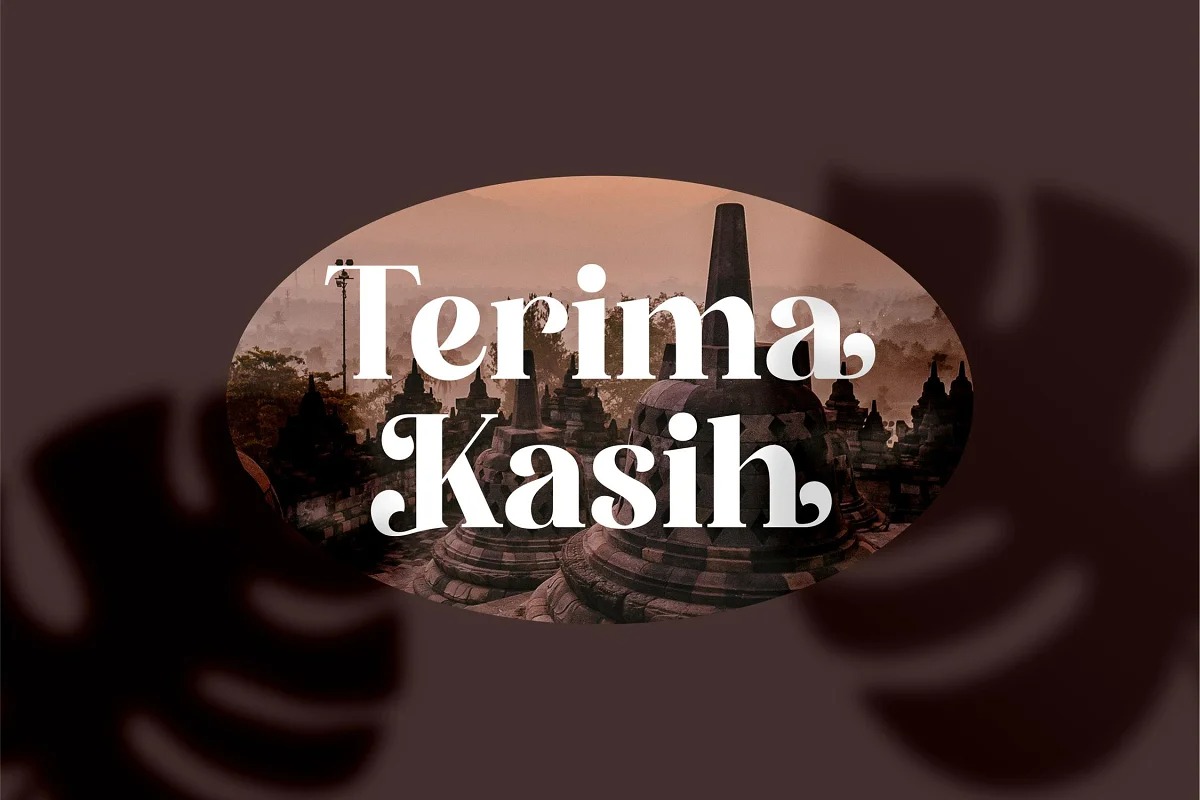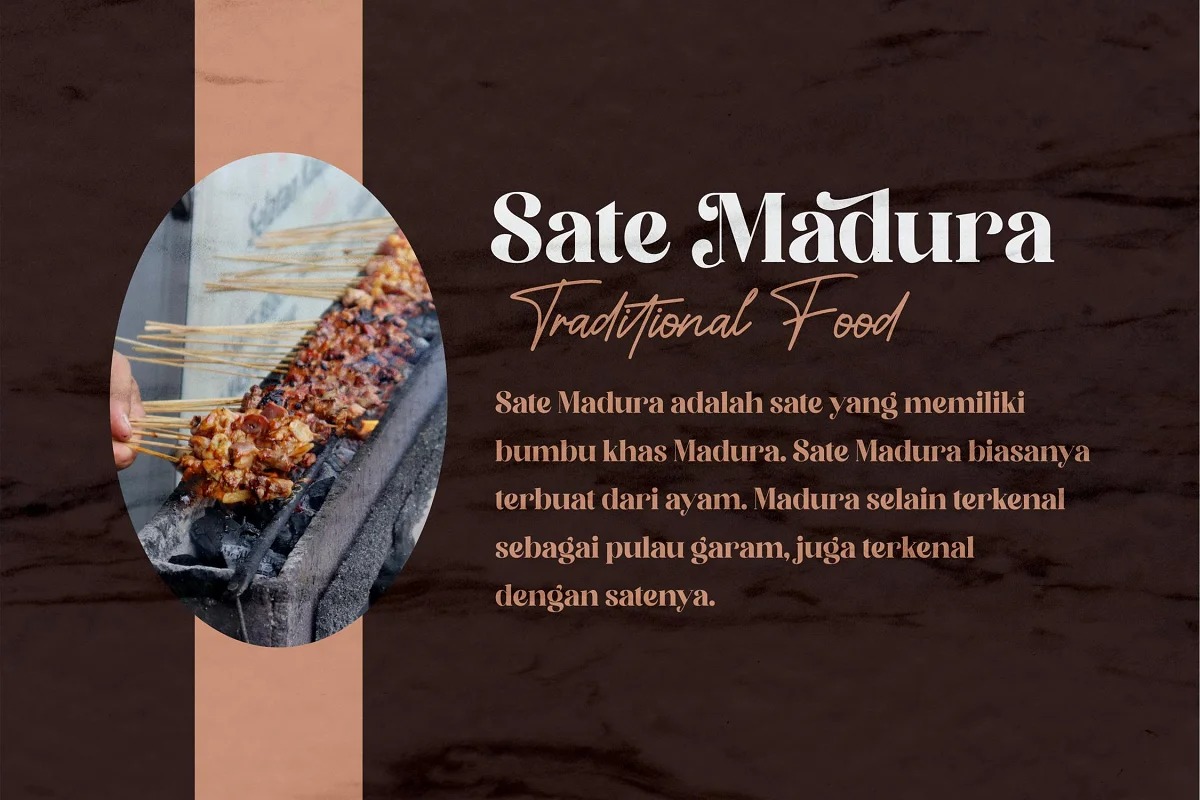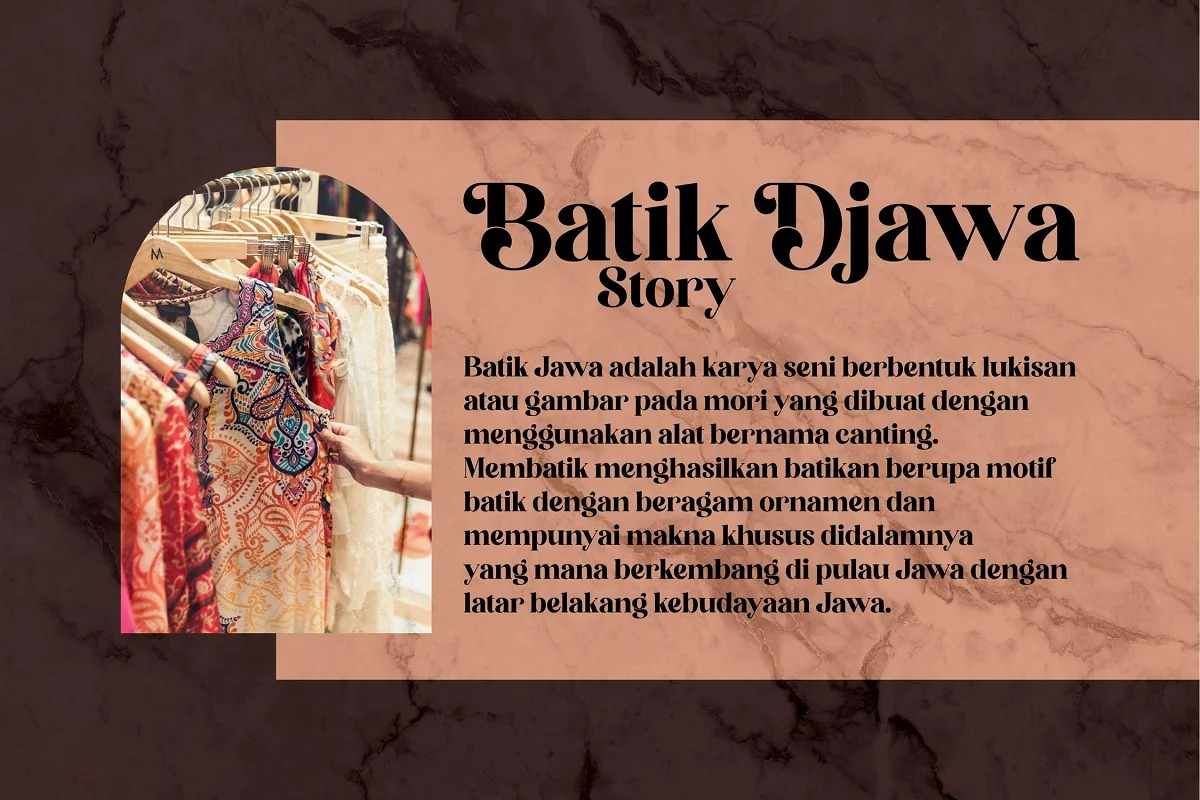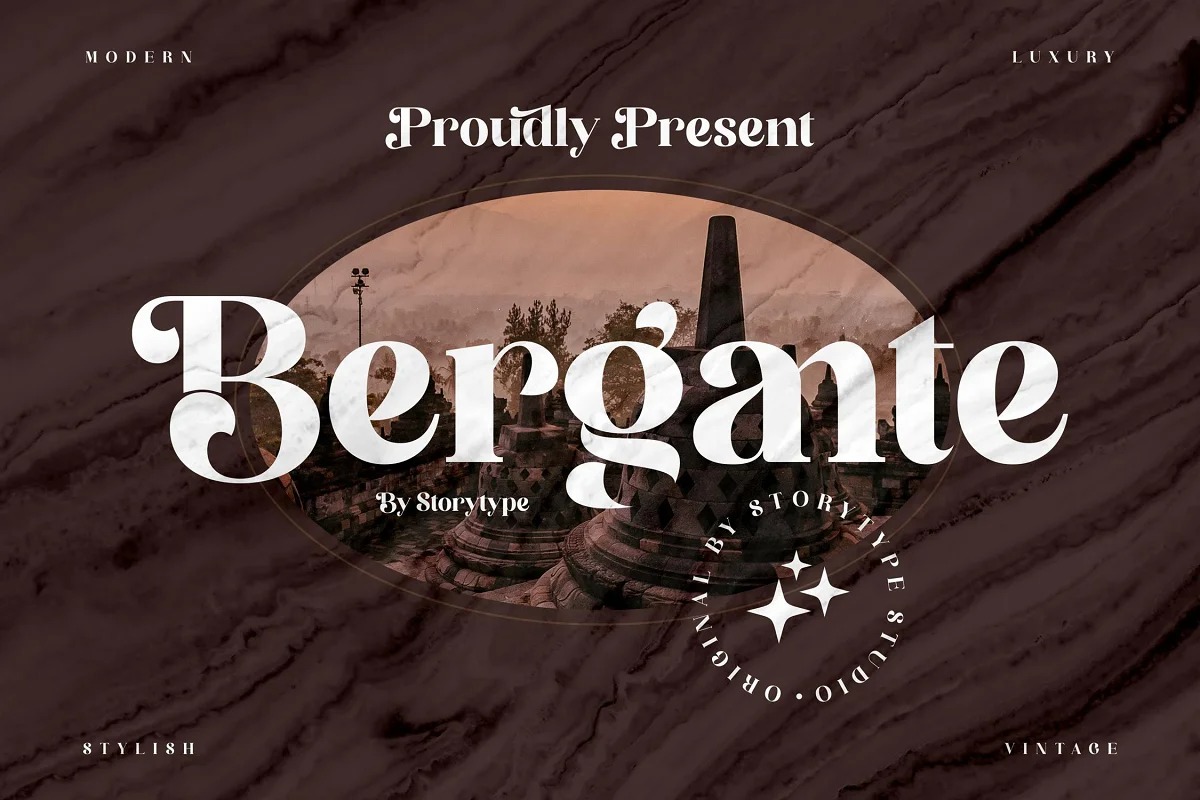
Bergante Serif Font
It’s sharp serif typeface with an elegant feel. Unique character by combining geometric shapes with organic curvy details. It is a unique typeface for your individual personality. This typeface is perfect for an elegant & luxury logo, book or movie title design, fashion brand, magazine, clothes, lettering, quotes, and so much more.